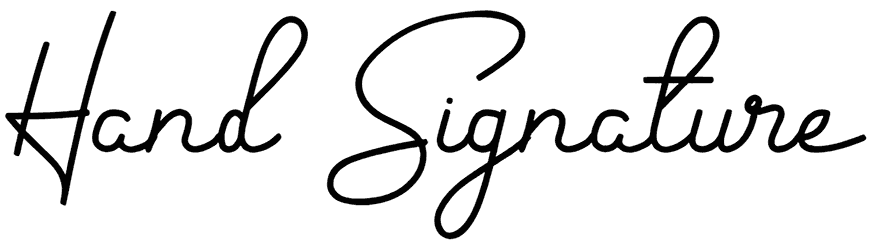
Hand Signature Font
If you want to show off your work with a specific manual form, don’t lose this chance. Hand Signature is a calligraphy font with a nice and delicate face that conveys an adorable vibe. There is no suggestion for numerals and punctuation marks, but this signature font can be matched with a lot of modern projects, from logos to mugs.